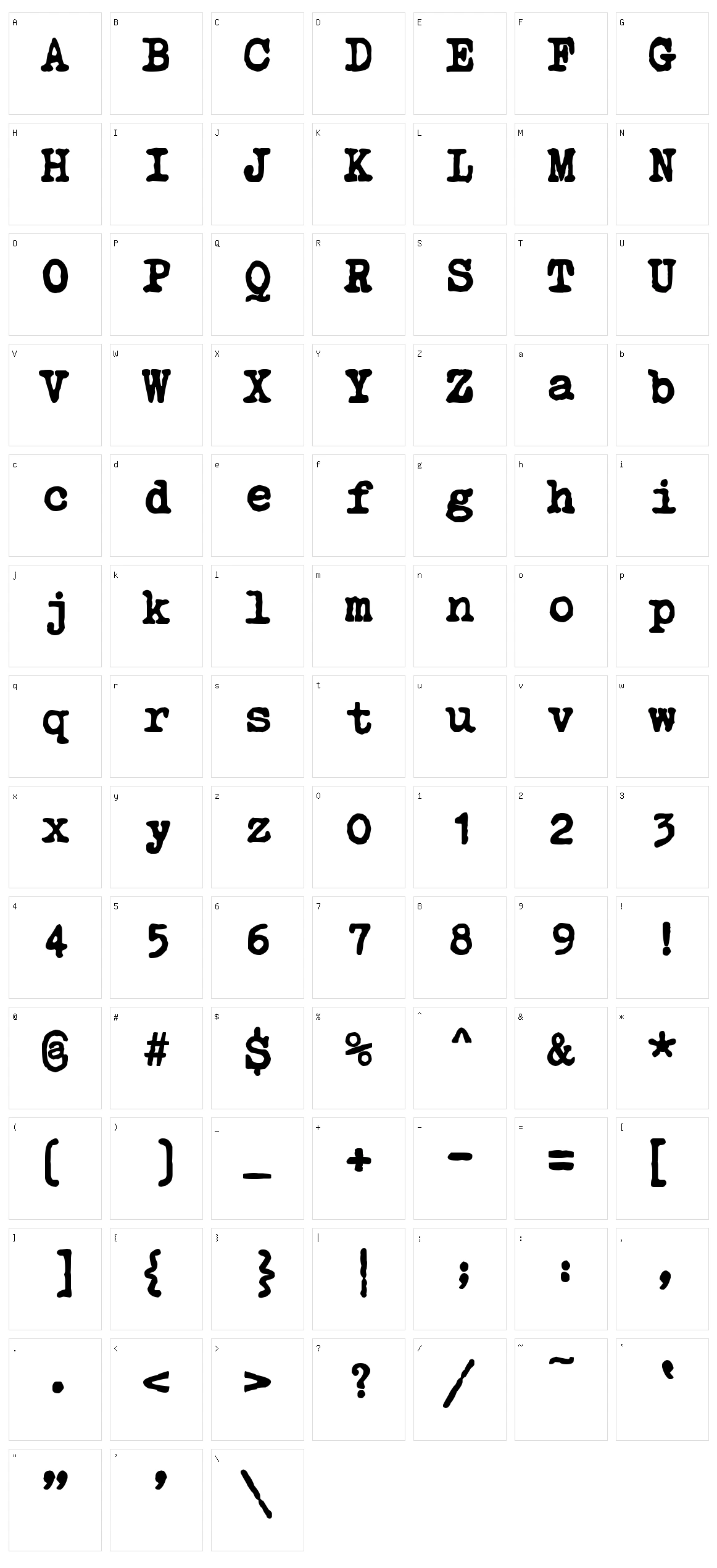
The free font Courier Polski 1941 is carefully designed by Tomasz Skowroński, showcasing a thoughtful balance of creativity and usability and falls under the Typewriter font style. When you download the ZIP file, it contains only 617.77 KB of font files, making it lightweight and quick to download. Please review the license details below to understand permitted usage and distribution rights. If license information is not available, we recommend using this font for personal projects only or contacting the author directly for commercial usage permissions.